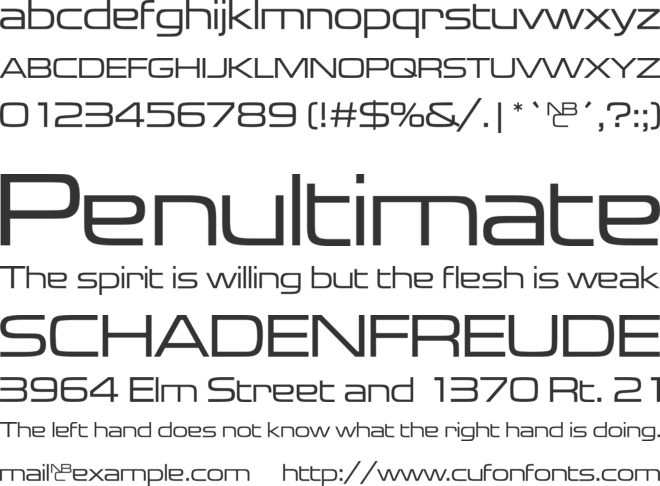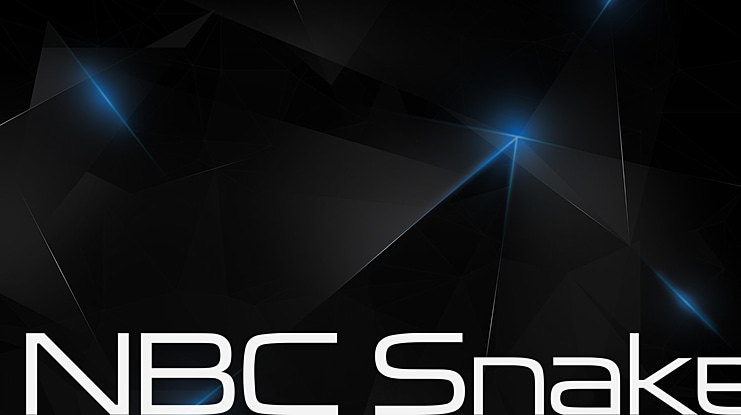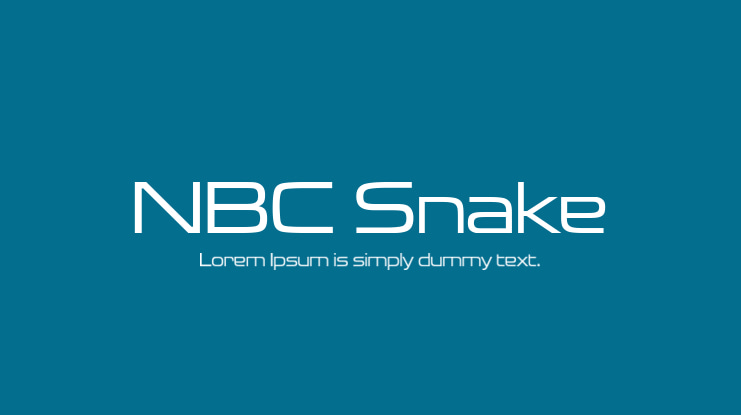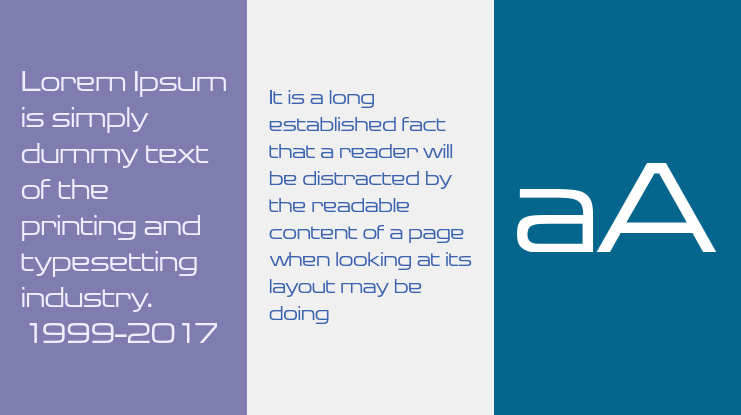
NBC Snake Font
JamesMoulton1988
As a Christmas gift, here's the NBC Snake font I recreated with Font Creator 5.6 Professional Edition. Although the font is similar to MicrogrammaDEEMedExt. I've decided to recreate this logo font... for all of the fontmakers. Yes, that includes, :iconlyricofficial: , :iconesteveztheart: and :icondledeviant: . Merry Christmas, everyone! :D © 2019 - 2021 JamesMoulton1988